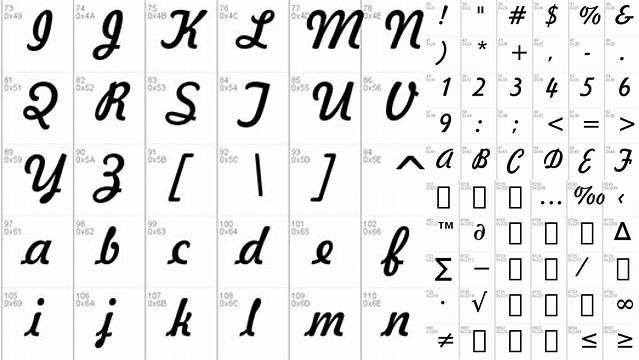
Freehand521 BT Font: The Ultimate Guide For Designers
#Introduction
Hey guys! Are you looking to add a personal touch to your designs? Let's dive into the Freehand521 BT font, a typeface that brings a casual, handwritten feel to any project. In this article, we'll explore what makes this font so special, how to use it effectively, and where you can find it. Whether you're a seasoned designer or just starting out, understanding the nuances of fonts like Freehand521 BT can significantly enhance your creative work. We will cover everything from its history and characteristics to practical tips and alternative options, ensuring you have a complete understanding of this versatile font.
What is Freehand521 BT Font?
Freehand521 BT font is a typeface designed to mimic natural handwriting. Its charm lies in its imperfections, giving it a more authentic and approachable look compared to standard digital fonts. Developed by Bitstream, this font has become a popular choice for projects that require a personal and informal touch. The beauty of Freehand521 BT is in its ability to convey warmth and sincerity, making it perfect for invitations, greeting cards, and even branding materials that aim to feel more human. This font stands out because it doesn't try to be perfect; instead, it embraces the slight irregularities that come with actual handwriting, creating a unique and engaging visual experience. Think of it as the digital equivalent of a handwritten note – personal, friendly, and inviting. Whether you're designing a blog header or creating social media graphics, Freehand521 BT can help you connect with your audience on a more personal level.
Key Characteristics of Freehand521 BT Font
When we talk about Freehand521 BT font characteristics, a few things stand out. First, it's designed to look like actual handwriting, meaning it has a natural, flowing quality. The strokes vary in thickness, and the letters have slight imperfections, which adds to its charm. Unlike more rigid fonts, Freehand521 BT feels organic and spontaneous. Each character seems to have been drawn by hand, giving your text a personal and relatable touch. Another key feature is its legibility. Despite its handwritten style, Freehand521 BT remains easy to read, making it suitable for a variety of applications. The font maintains clarity even at smaller sizes, which is crucial for body text in documents or websites. Its versatility also shines through in its ability to pair well with other fonts. You can use it for headings and titles, combined with a more traditional font for the body text, to create a balanced and visually appealing design. The overall effect is a font that feels both casual and professional, making it a valuable asset in any designer's toolkit. It’s the kind of font that adds a human touch, making your work feel more approachable and authentic.
How to Use Freehand521 BT Font Effectively
To make the most of Freehand521 BT font, it's essential to know how to use it effectively. Here are a few tips to get you started. Firstly, consider the context. This font works best in situations where you want to convey a sense of informality and personal connection. Think about using it for greeting cards, invitations, or even branding materials for businesses that want to appear friendly and approachable. However, avoid using it in formal documents or situations where a professional, authoritative tone is required. Secondly, pay attention to the size and spacing. Freehand521 BT can sometimes appear cluttered if the letters are too close together. Increase the letter spacing slightly to improve readability, especially in longer passages of text. Also, make sure the font size is appropriate for the medium. While it remains legible at smaller sizes, larger sizes will highlight its unique characteristics and make a bolder statement. Thirdly, think about pairing it with other fonts. Freehand521 BT works well with simpler, more structured fonts. For example, you could use it for headings and pair it with a clean sans-serif font for the body text. This creates a visually appealing contrast and ensures that your design remains balanced and easy to read. Finally, experiment with different weights and styles. Although Freehand521 BT is primarily known for its regular weight, some variations may offer bold or italic styles that can add emphasis and visual interest to your designs. By keeping these tips in mind, you can harness the full potential of Freehand521 BT and create designs that are both visually appealing and effective in communicating your message.
Practical Examples of Freehand521 BT Font in Design
Let's look at some practical examples of how the Freehand521 BT font can be used in design. Imagine you're creating a wedding invitation. Using Freehand521 BT for the names of the bride and groom adds a personal and intimate touch, making the invitation feel more special and heartfelt. The font's handwritten style conveys warmth and sincerity, setting the tone for a romantic event. Another example is designing a logo for a small, local coffee shop. Using Freehand521 BT in the logo can help the coffee shop appear more approachable and friendly, attracting customers who are looking for a cozy and welcoming atmosphere. The font's casual style suggests a relaxed and informal environment, perfect for a neighborhood gathering place. Consider using Freehand521 BT for the headings and subheadings of a blog. This can add a personal touch to your blog's design, making it feel more engaging and relatable to your readers. The font's handwritten style creates a sense of authenticity, encouraging readers to connect with your content on a more personal level. Another great application is in creating social media graphics. Using Freehand521 BT for quotes or announcements can help your posts stand out in a crowded newsfeed. The font's unique and eye-catching style grabs attention and encourages users to engage with your content. Finally, think about using Freehand521 BT for creating handmade cards or scrapbook layouts. The font's personal and informal style adds a touch of warmth and nostalgia to your projects, making them feel more meaningful and heartfelt. By exploring these practical examples, you can see how Freehand521 BT can be used in a variety of design projects to create a personal, engaging, and memorable experience for your audience. These instances can help spark inspiration for your next project.
In conclusion, Freehand521 BT font is a fantastic choice for adding a personal and informal touch to your designs. Its handwritten style, versatility, and legibility make it suitable for a wide range of applications, from wedding invitations to blog headings. By understanding its key characteristics and following the tips outlined in this article, you can use Freehand521 BT effectively to create designs that are both visually appealing and engaging. Remember to consider the context, pay attention to size and spacing, and experiment with different font pairings to achieve the best results. If Freehand521 BT isn't quite what you're looking for, there are plenty of alternatives that offer a similar handwritten feel. By exploring these options, you can find the perfect font to suit your specific needs and preferences. So go ahead, download Freehand521 BT or one of its alternatives, and start creating designs that are truly unique and memorable. Embrace the charm of handwritten fonts and let your creativity flow! I hope this guide has been helpful. Happy designing, everyone!